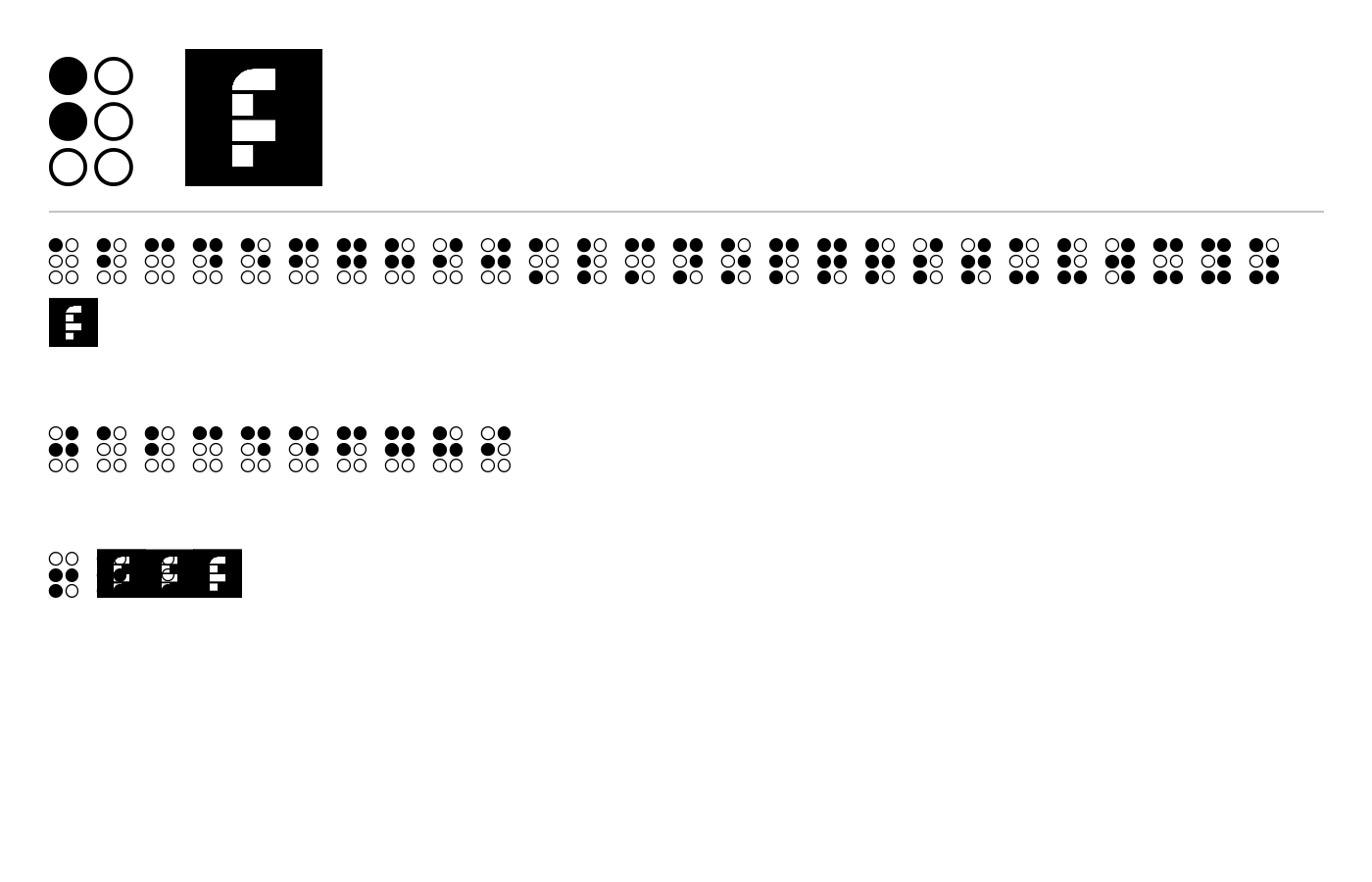
Braillefont is a unique, symbolic typeface inspired by the tactile braille system, featuring a clean, geometric design with bold circular dots arranged in a grid pattern. Its striking black and white contrast creates a modern, minimalist aesthetic, making it ideal for creative projects that want to emphasize accessibility, inclusivity, or a futuristic feel. This font works best for logos, posters, and digital media where a distinctive, conceptual look is desired.
Braillefont